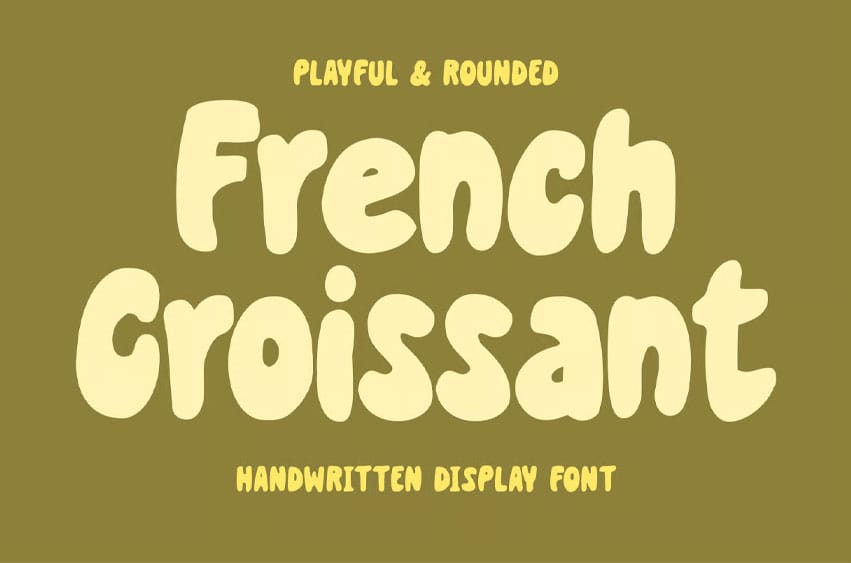
French Croissant Font is a playful, rounded handwritten display font that feels warm and friendly, like a fresh pastry from a café. Its soft curves make it perfect for logos, food branding, packaging, posters, and social media designs. Fun, bold, and approachable, this font brings charm and personality to any project.